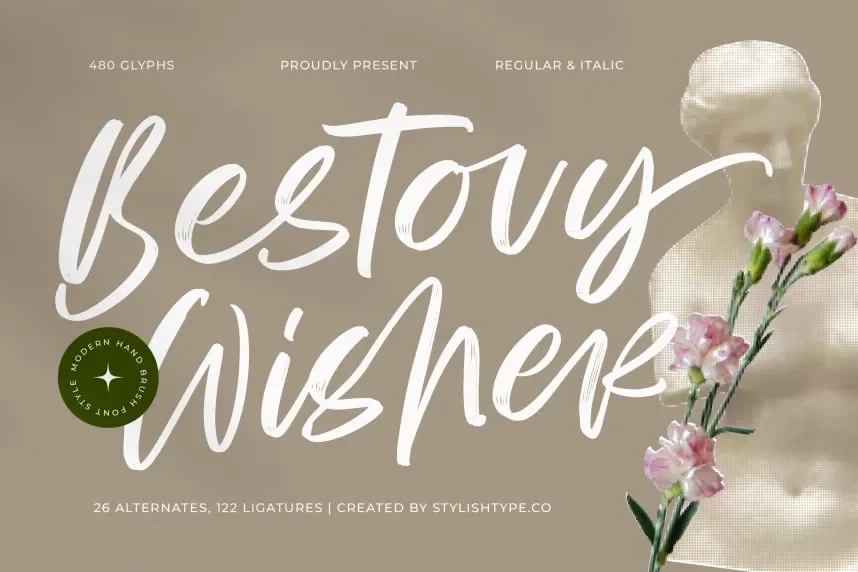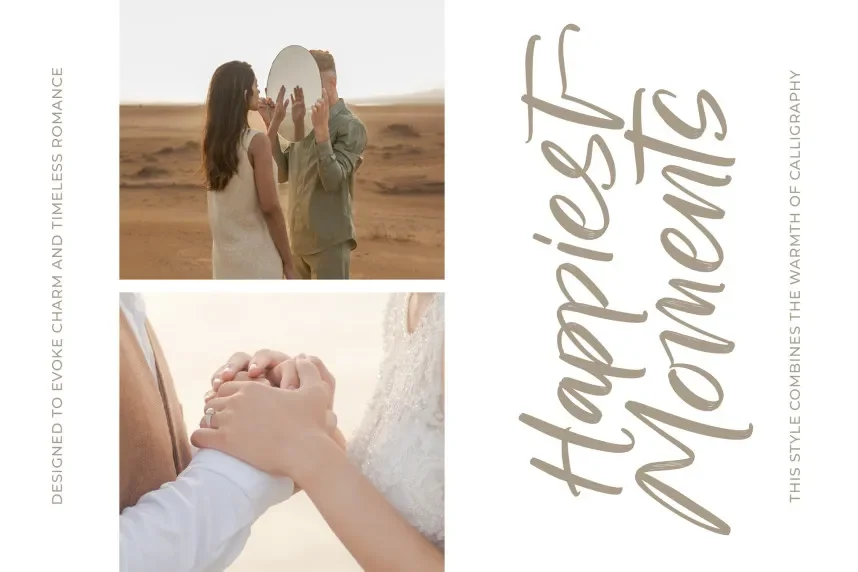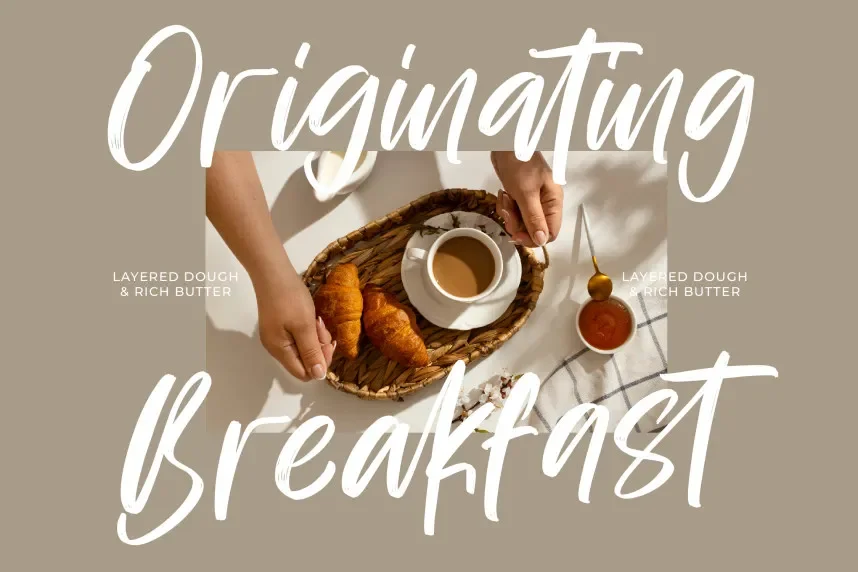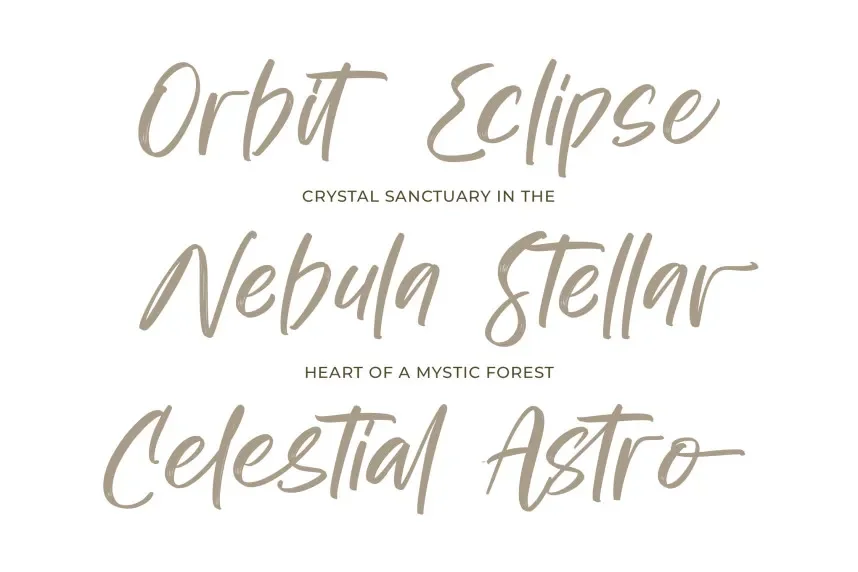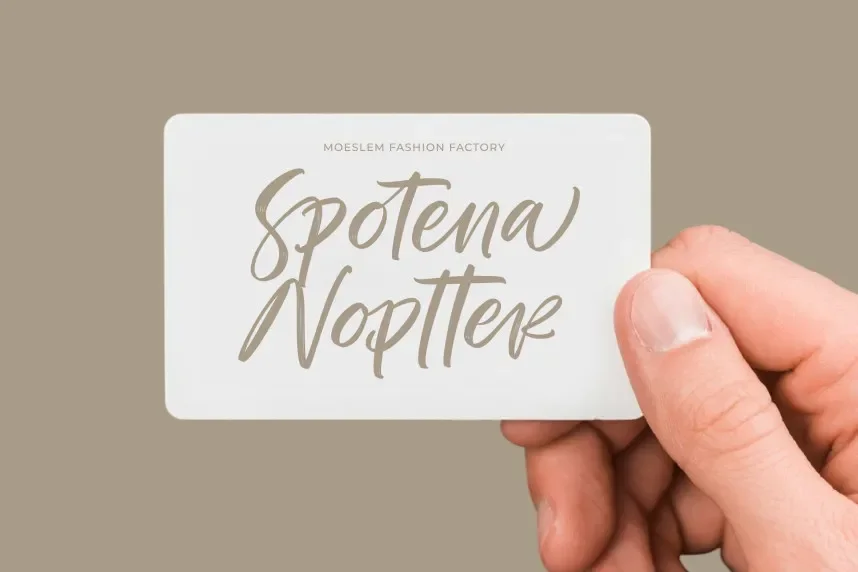
Bestovy Wisher Font is a modern handbrush typeface designed to add expressive character without reducing readability. Designers often face issues with brush fonts that look uncontrolled or inconsistent across layouts. Bestovy Wisher solves this by using balanced strokes and clear letter spacing suitable for digital and print use.
This font belongs to the handbrush script category. Its letterforms show natural brush pressure, visible stroke variation, and slightly rough edges that reflect real brush movement. Despite its handcrafted style, the characters remain aligned and legible, especially in short text and headings.
Bestovy Wisher works well for branding, logo design, social media graphics, posters, and creative packaging. It is also effective for lifestyle visuals and promotional materials. Designers typically pair it with a clean sans-serif font for body copy to maintain clarity and hierarchy.